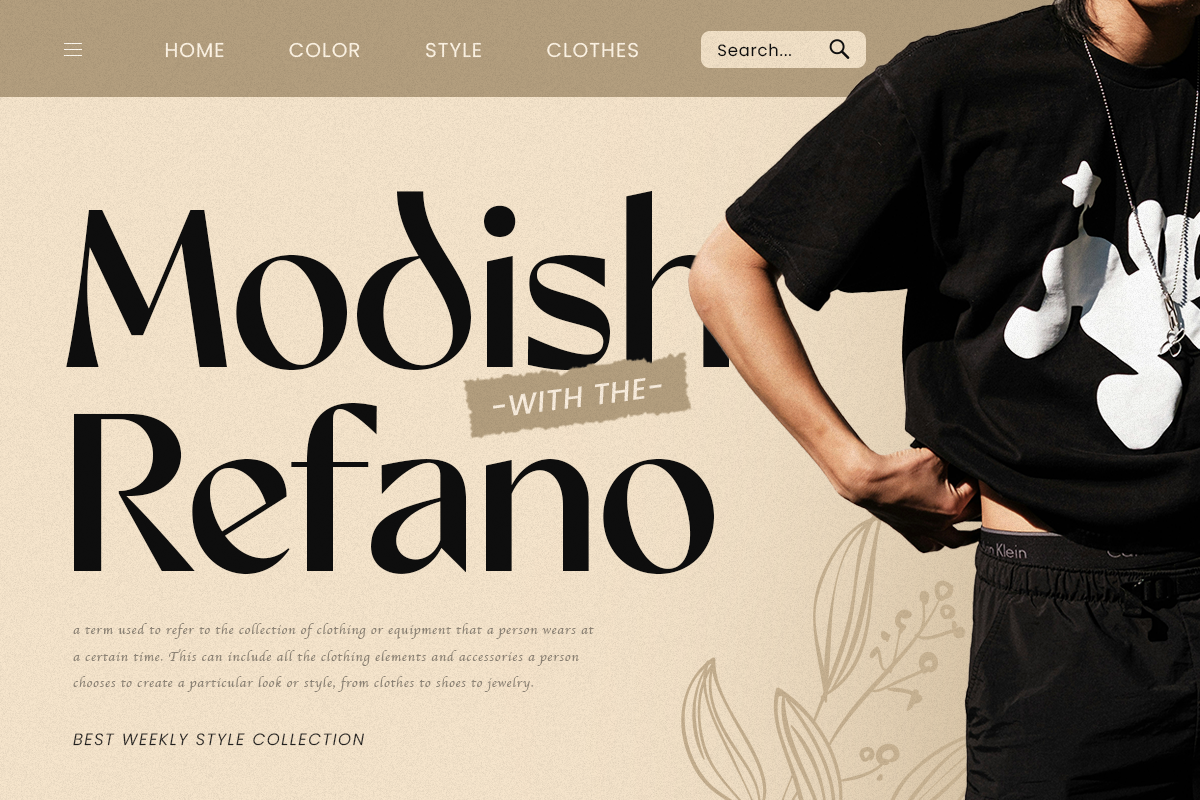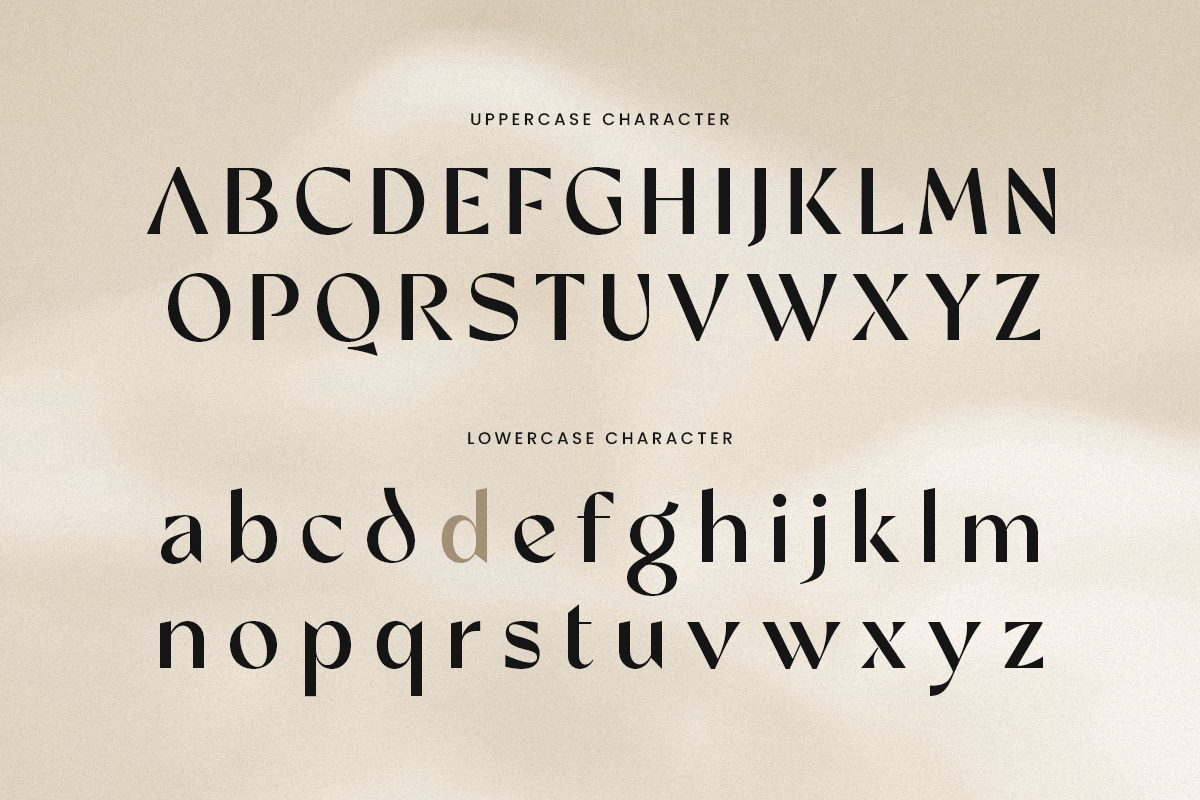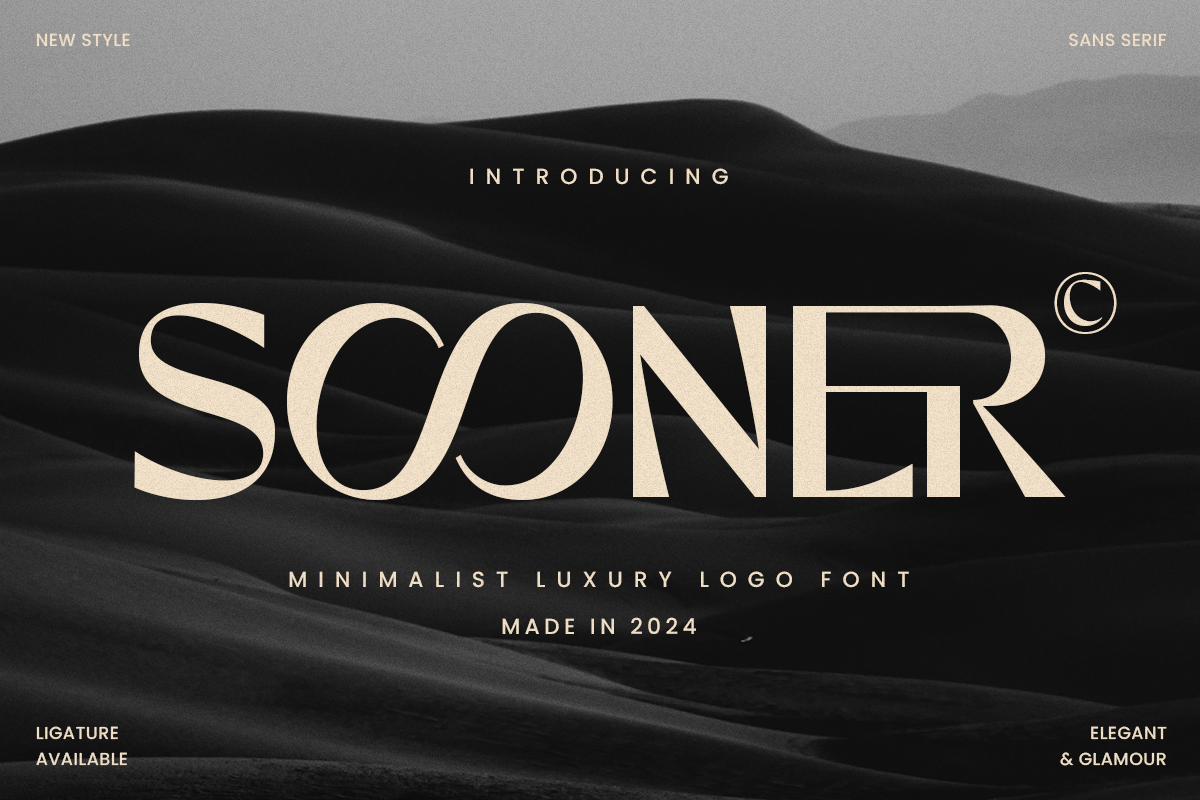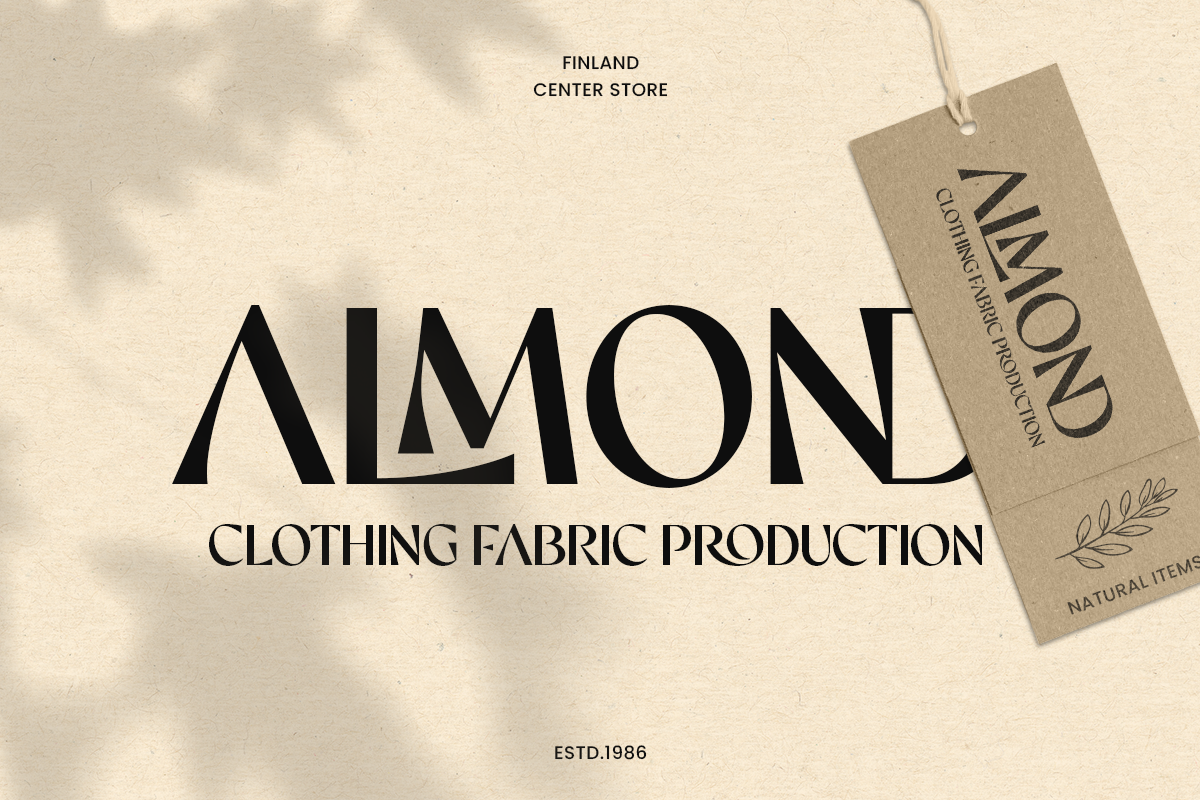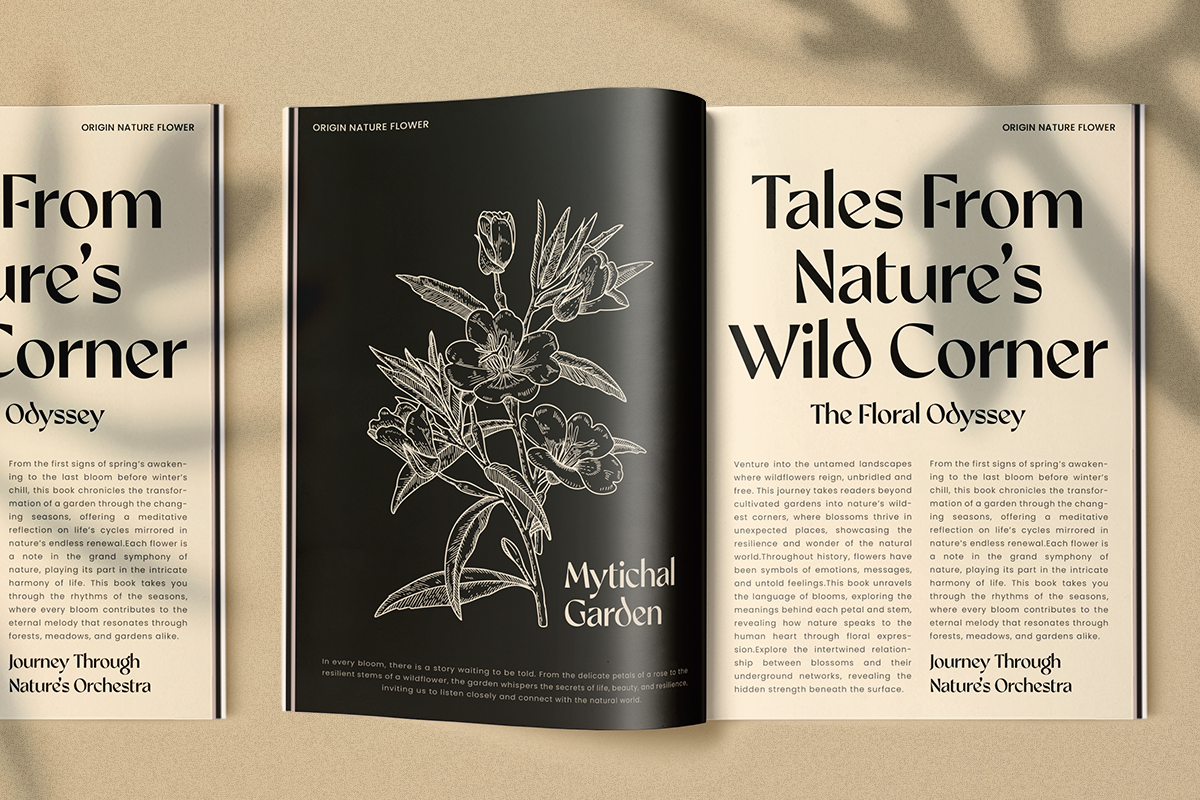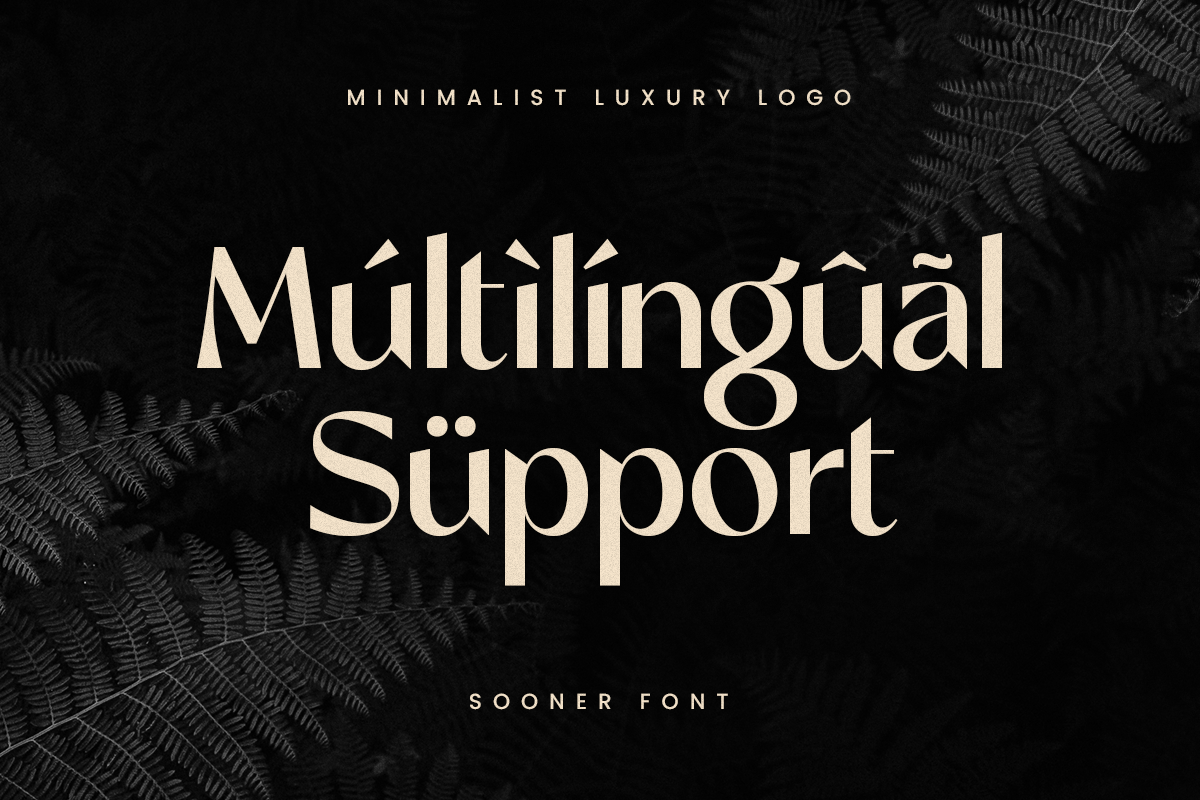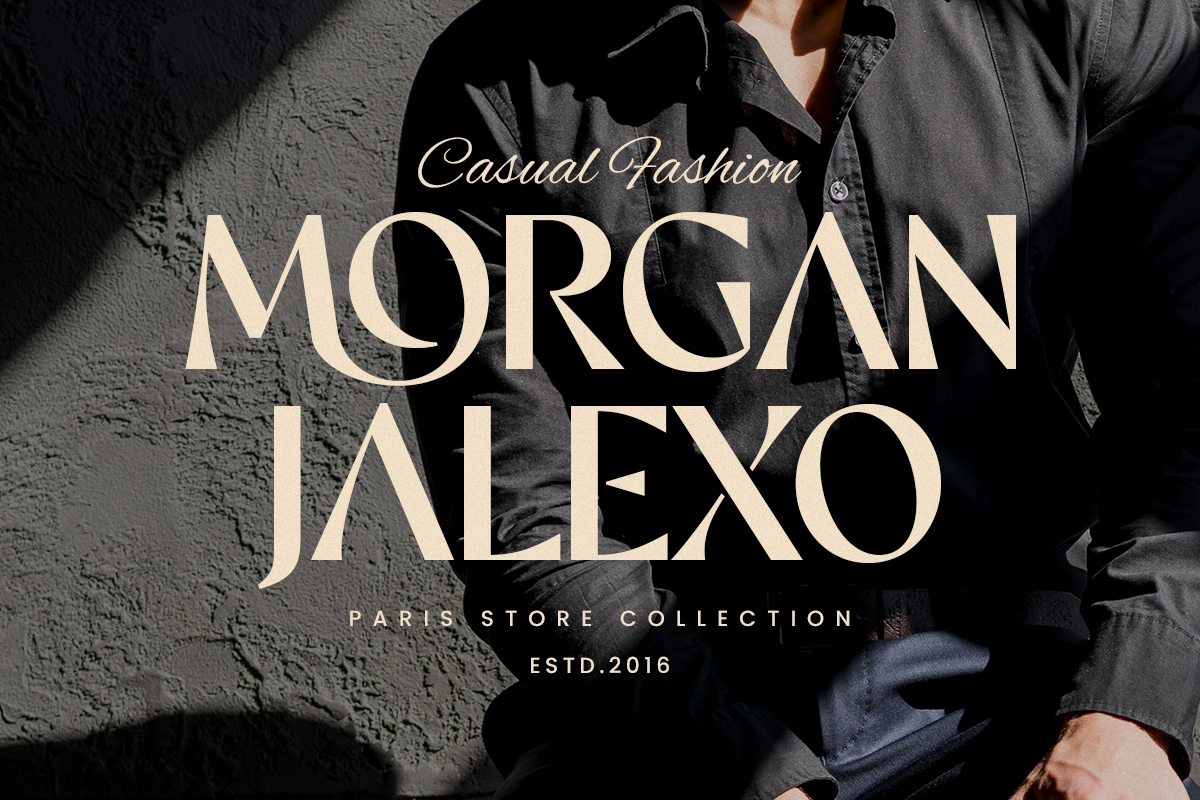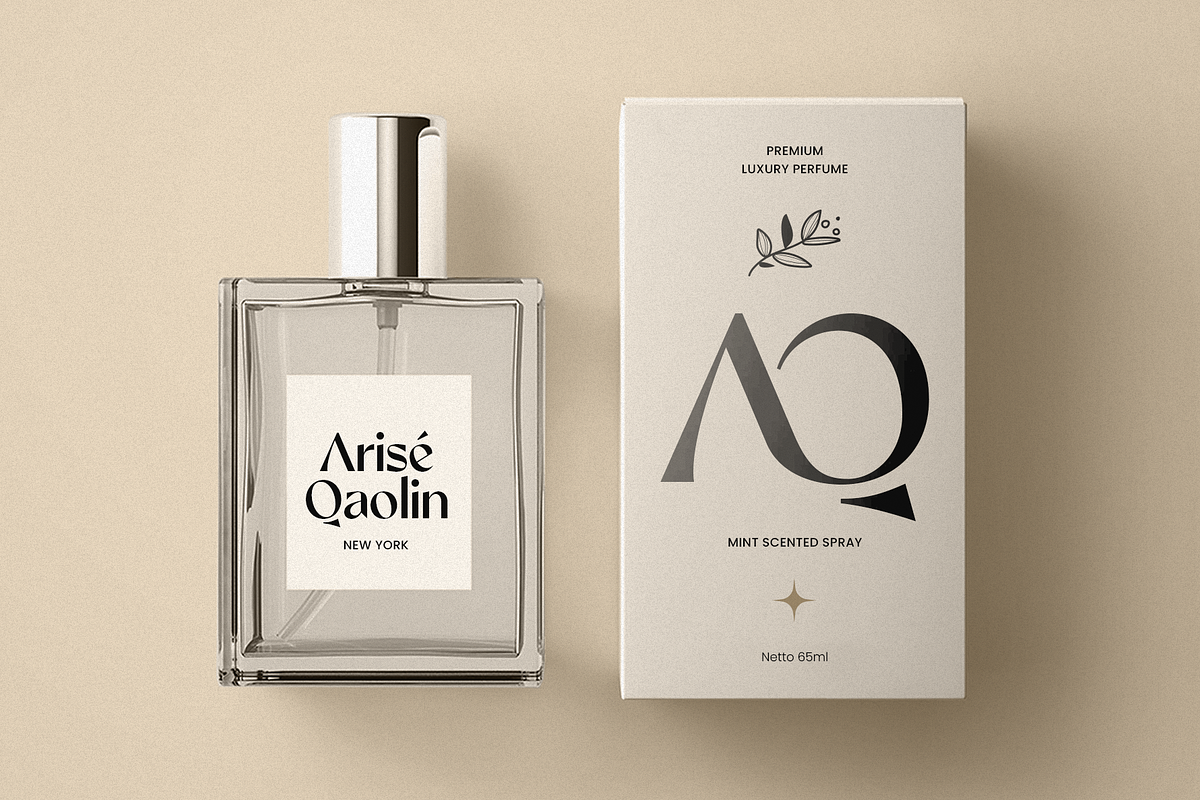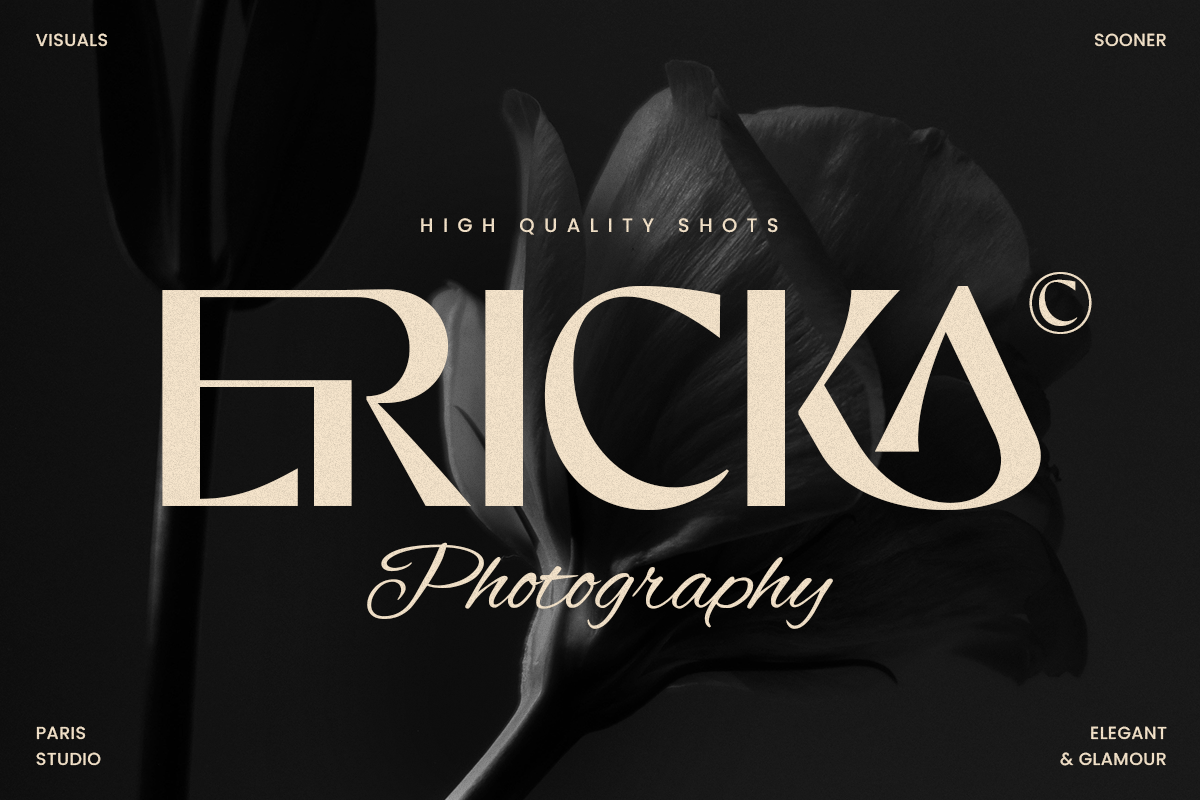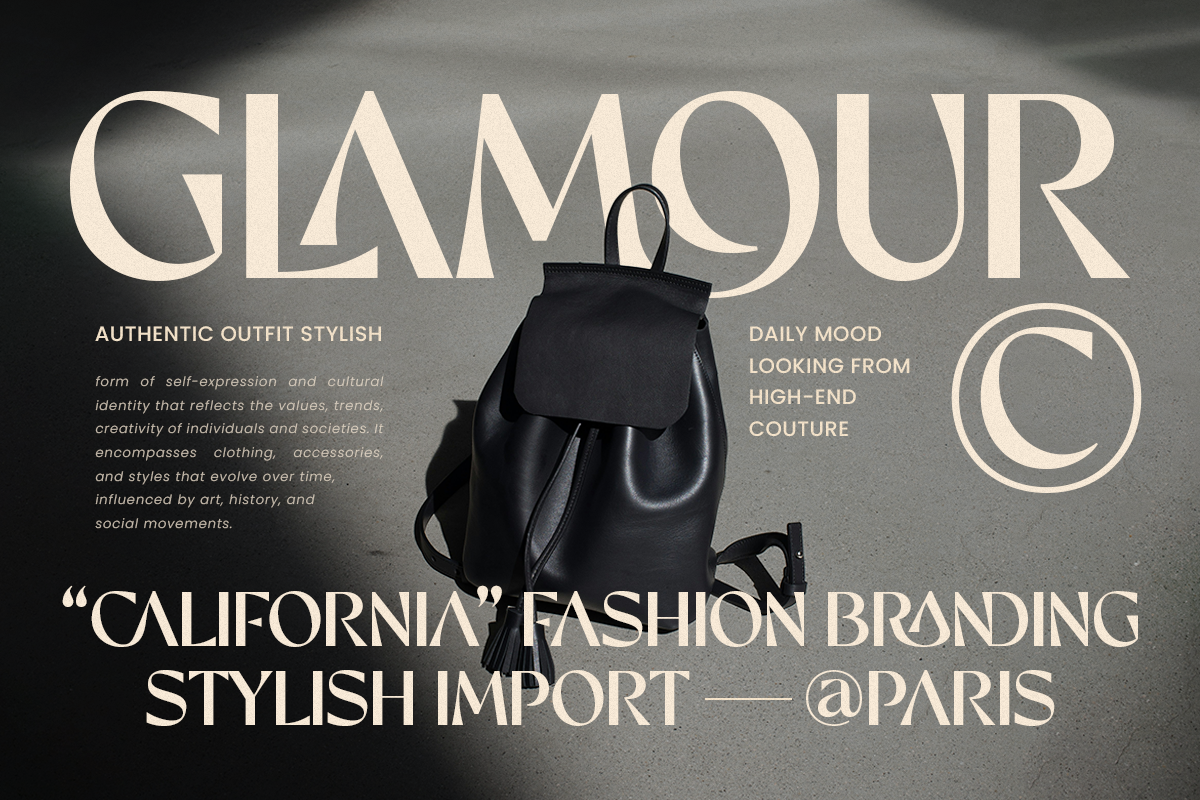
Sooner - Minimalist Luxury Logo Font
Sooner is a minimalist luxury logo font designed to embody sophistication and simplicity. Its clean lines and refined letterforms make it ideal for high-end branding, modern logos, and stylish editorial design. Crafted with a focus on elegance and minimalism, Sooner helps create a visual identity that is both contemporary and timeless.
Whether used for upscale fashion labels, sleek product packaging, or professional business cards, Sooner adds a touch of luxury and precision to your projects. The font's balance between simplicity and style ensures that your message stands out without overwhelming the design.
Opt for Sooner to enhance your visual communication with its minimalist luxury appeal. Let your branding speak volumes through subtle elegance and modern sophistication with this versatile and impactful typeface.
Sooner Minimalist Luxury Logo Font Features:
Clean and Refined Character Designs
Unique Ligature Characters Ready
Punctuation, Number, and Symbol
Opentype Features
Multilingual Characters available for:
Afrikaans, Albanian, Asu, Basque, Bemba, Bena, Breton, Chiga, Cornish, Dutch, English, Estonian, Filipino, Finnish, Friulian, Galician, German, Gusii, Indonesian, Irish, Italian, Kabuverdianu, Kalenjin, Kinyarwanda, Luo, Luxembourgish, Luyia, Machame, Makhuwa-Meetto, Makonde, Malagasy, Manx, Morisyen, North Ndebele, Nyankole, Oromo, Portuguese, Quechua, Romansh, Rombo, Rundi, Rwa, Samburu, Sango, Sangu, Scottish Gaelic, Sena, Shambala, Shona, Soga, Somali, Spanish, Swahili, Swedish, Swiss.